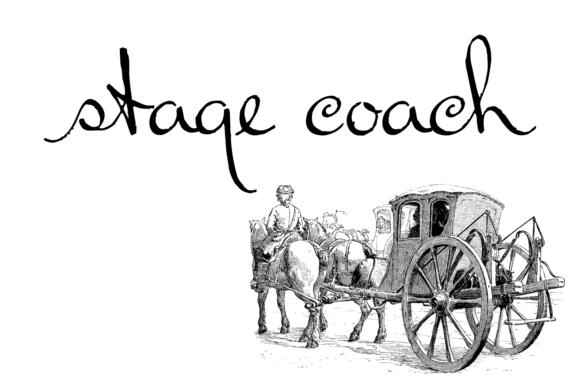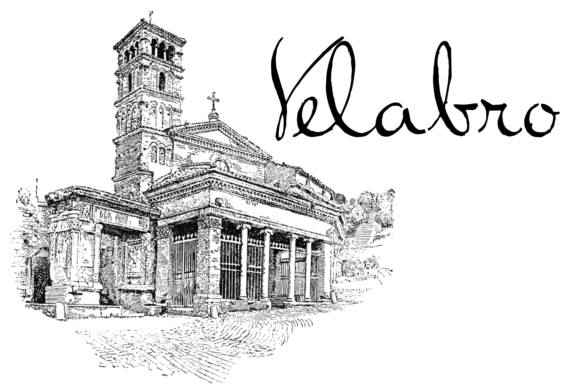
HomeScript FontsRalph Walker Font Script Fonts Ralph Walker Font FacebookXPinterestWhatsApp Ralph Walker Font Poster 2 Ralph Walker Font Poster 3 About Ralph Walker Font The Ralph Walker is a naive handwriting typeface. DOWNLOAD NOW People also explored Just Write Font Castlerigg Simple Minimalist Font Kidorama Font Hummingbird Family Font Madigna Font Happy Birthday Font Shelter Font Xenophile Font 340 0 TagsRalph Walker Font Previous articleVontage FontNext articleSweet About Font LEAVE A REPLY Cancel reply Comment: Please enter your comment! Name:* Please enter your name here Email:* You have entered an incorrect email address! Please enter your email address here Website: Save my name, email, and website in this browser for the next time I comment. Personal Use Free Alphakind Personal Use Free Read more about this font Shelly Personal Use Free Read more about this font Written by Hand Personal Use Free Read more about this font Wallabys Junior Personal Use Free Read more about this font BLOG Exploring Font Trends Shaping Communication in the Digital Era Fonts, like all design elements, are subject to trends. They play a crucial role in communicating a brand's personality,... Using Fonts in Digital Marketing: Tips to Strengthen Your Brand Identity To increase your work productivity, choose the most readable fonts. Top 7 Google Fonts Alternatives for Faster and Privacy-Friendly Web Design (2025)